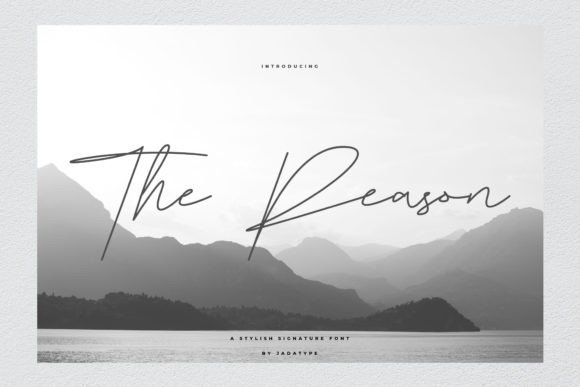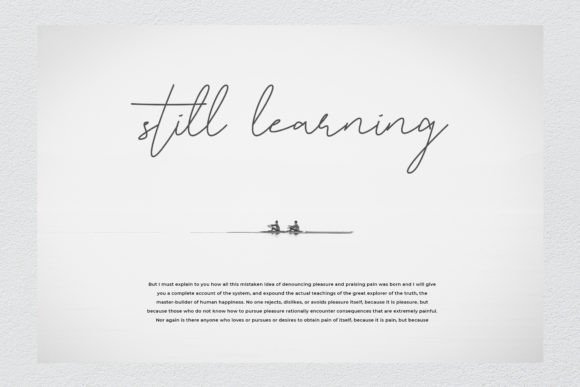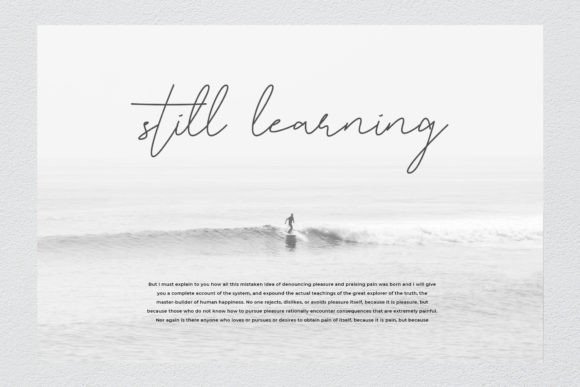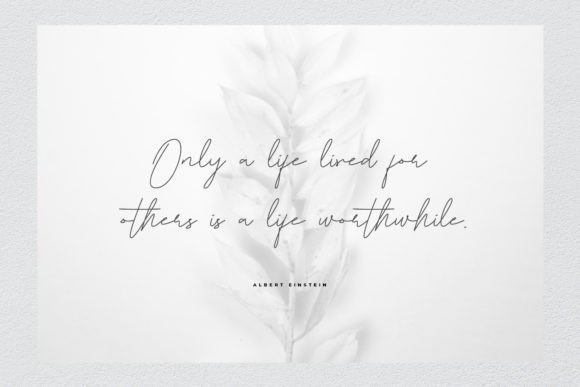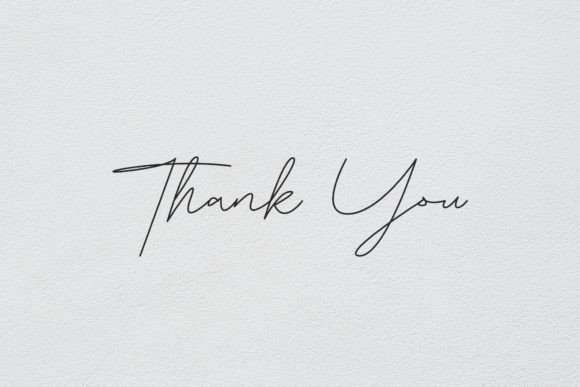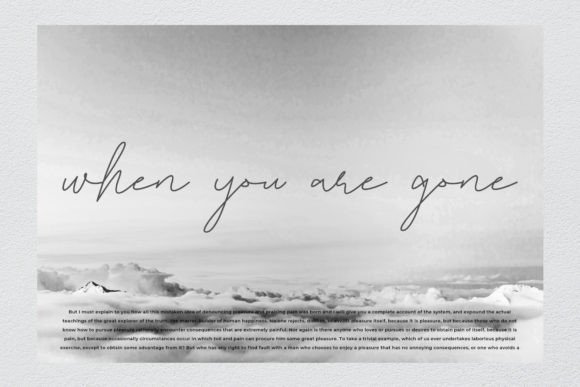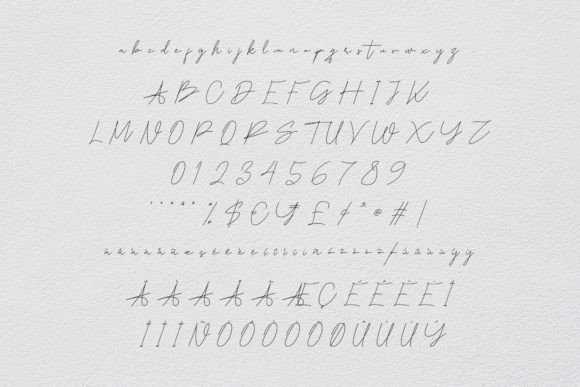
The Reason Font
A Beautifully Balanced Script Typeface
The Reason Font is an elegant, flowing handwritten script typeface that instantly elevates the style and impact of any design project. Carefully crafted with refined curves and balanced proportions, each character blends seamlessly to create harmonious and sophisticated typography.
Thanks to its graceful lines and subtle flourishes, The Reason is perfect for applications where you want to convey beauty, warmth, and a personal touch. Whether you’re designing wedding invitations, brand logos, or inspirational social media graphics, this font brings an air of timeless elegance.
Perfect for a Variety of Design Uses
One of the standout features of The Reason Font is its versatility. The font’s well-balanced characters make it suitable for both digital and print media. Here are just a few ways you can use it:
• Wedding and Event Invitations: Set a romantic tone with flowing script.
• Branding and Logos: Make your brand feel premium and sophisticated.
• Greeting Cards: Add a personal and heartfelt touch.
• Quotes and Posters: Present motivational phrases beautifully.
• Social Media Graphics: Create share-worthy visuals with style.
Its readability ensures your text is always clear, even in longer passages or smaller sizes.
Designed for Elegance and Impact
Every letter in The Reason has been thoughtfully designed to create visual consistency. The smooth connections between letters and the gentle contrast in stroke widths make it feel polished without being overly ornate.
If you want your designs to look refined but approachable, this font strikes the perfect balance.
Tips for Getting the Most Out of The Reason Font
To make the most of this elegant script font, consider these tips:
• Use Plenty of White Space: Allow the letters to breathe so their beauty can shine.
• Pair with Clean Sans Serifs: Combining The Reason with a minimal sans serif creates a modern, stylish contrast.
• Adjust Letter Spacing: Small tweaks can improve legibility and flow.
• Try It on Large Formats: The fine details look stunning in headlines and big titles.
Ideal for Designers Who Value Craft and Beauty
The Reason Font is a favorite among designers who appreciate delicate yet impactful typography. Its balanced character set provides endless possibilities for creative expression without compromising elegance.
The Reason Font is more than just a typeface—it’s an opportunity to tell your story beautifully. Bring your ideas to life with this elegant handwritten script and watch your designs become unforgettable.